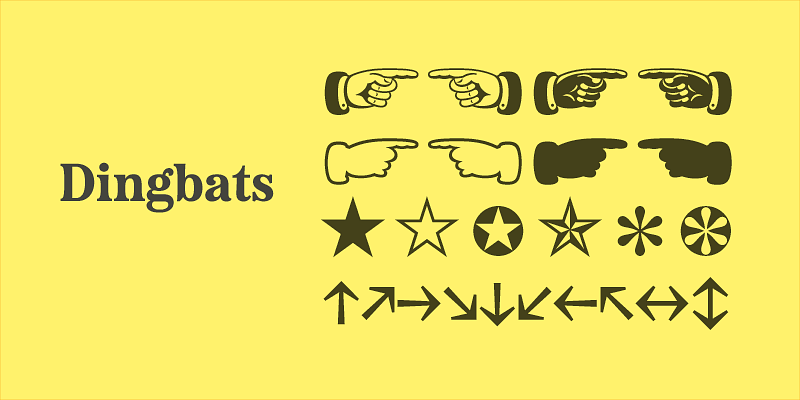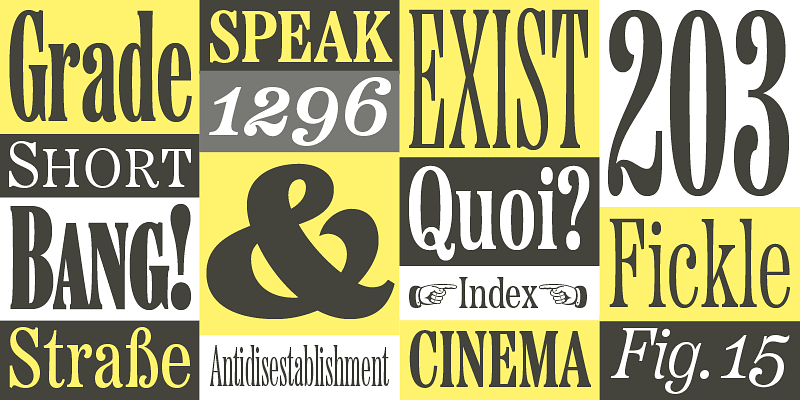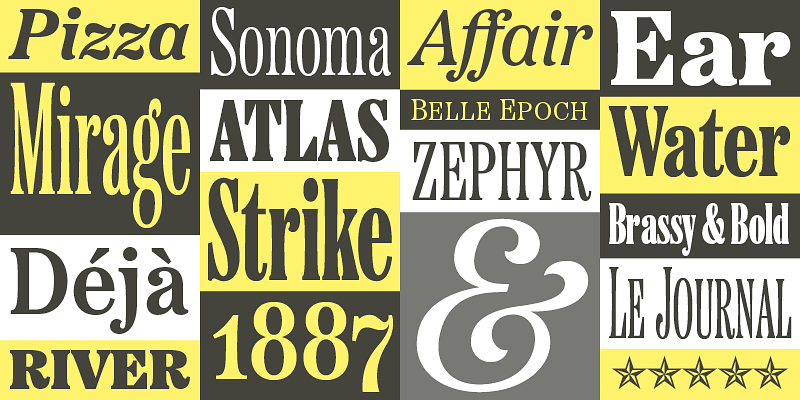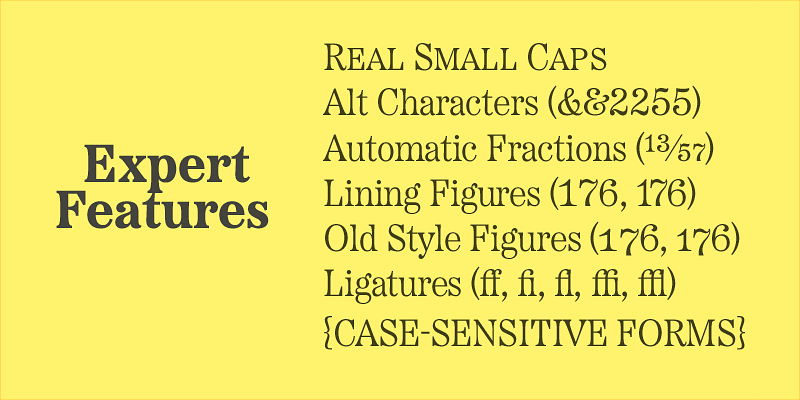
Etna (2020) was inspired by the Aetna wood type style of the late nineteenth century. Etna tames this quirky Victorian design into a complete family suitable for modern use, adding a full range of six weights and italics, allowing it to work equally well for both text and display. Etna includes three different condensed widths in all six weights (intended for display use), four different figure styles, alternate characters, true small caps, and a selection of dingbats, including arrows, stars, asterisks, and manicules (pointing hands).